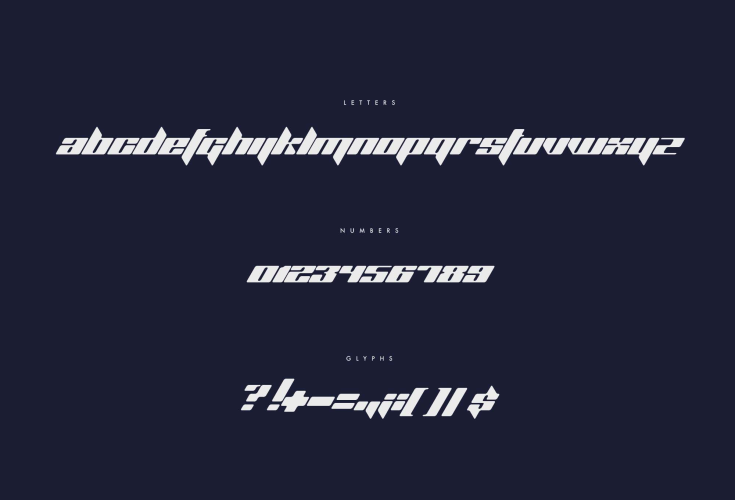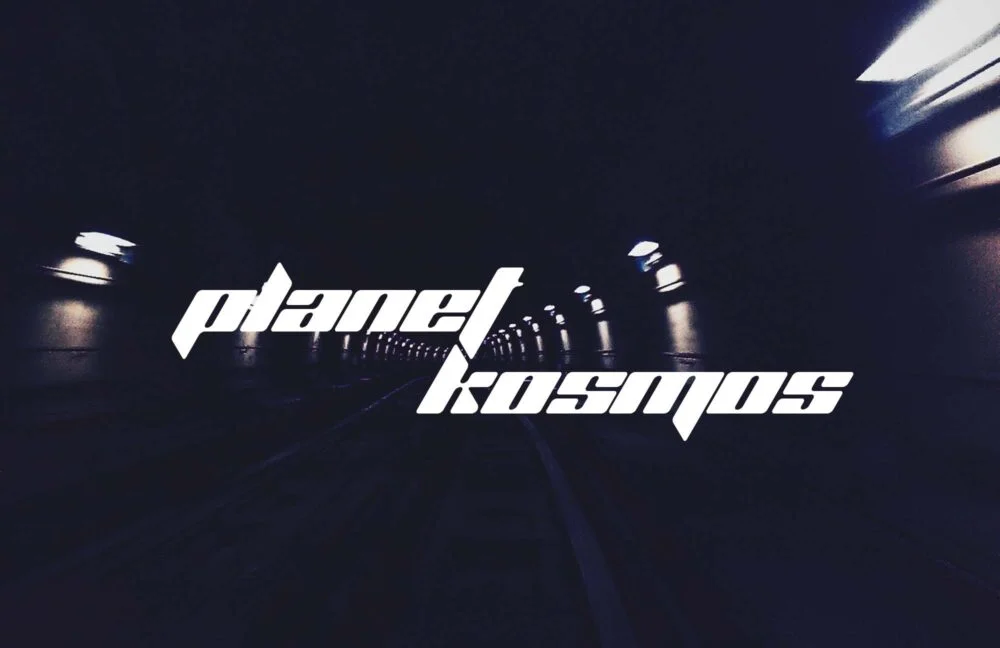
Planet Kosmos Font
Planet Kosmos Font comes only in the regular style (which is bold), semi-light weight, a normal (medium) width. It also supports a limited number of alternate characters…
Planet Kosmos Font comes only in the regular style (which is bold), semi-light weight, a normal (medium) width. It also supports a limited number of alternate characters. The font is perfect for your operating system. It is very suitable when designing text-based images or logos.
Where Planet Kosmos Font works best
Planet Kosmos Font is built for size: event posters, hero headlines and billboard-style layouts.
High contrast display type like Planet Kosmos Font reads instantly in thumbnails and motion graphics.
What is Planet Kosmos Font good for?